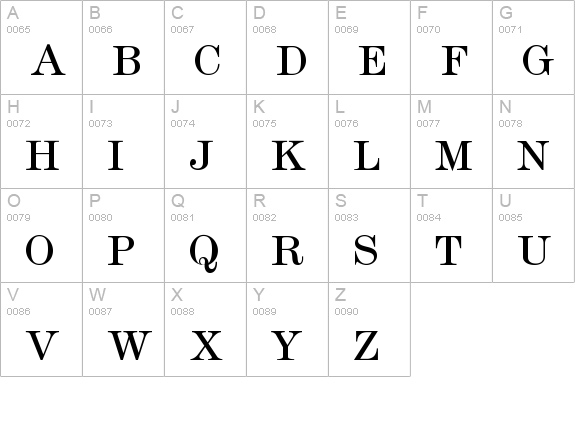
Introducing ModernLight font, a sleek and sophisticated typeface perfect for contemporary design projects. With its clean lines and elegant curves, ModernLight exudes a sense of modernity and style. This versatile font is ideal for a wide range of applications, from branding and advertising to web design and editorial projects. Whether you're looking to create a sleek and professional look or add a touch of sophistication to your designs, ModernLight is sure to impress. Best of all, ModernLight is available for free download at FontsMarket.com. Take advantage of this fantastic offer and elevate your designs with the timeless appeal of ModernLight font. Download it now and see the difference it can make in your projects!